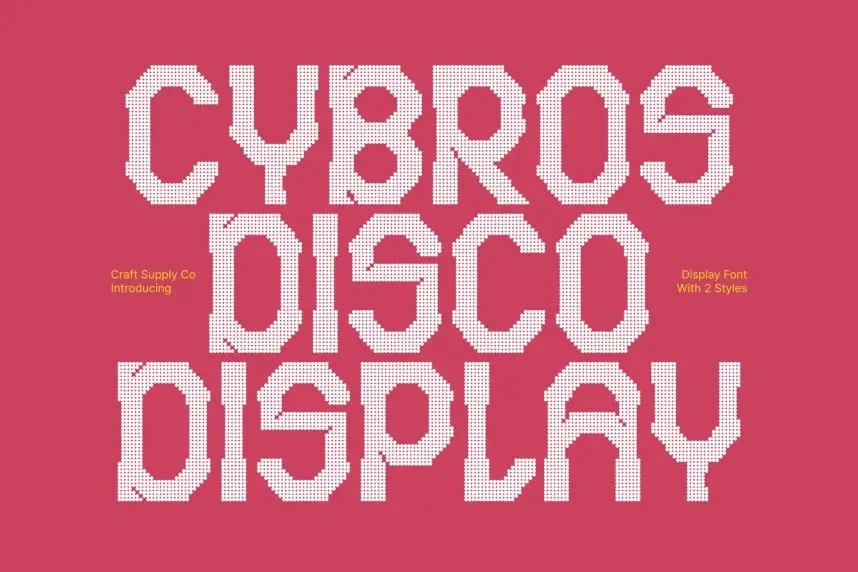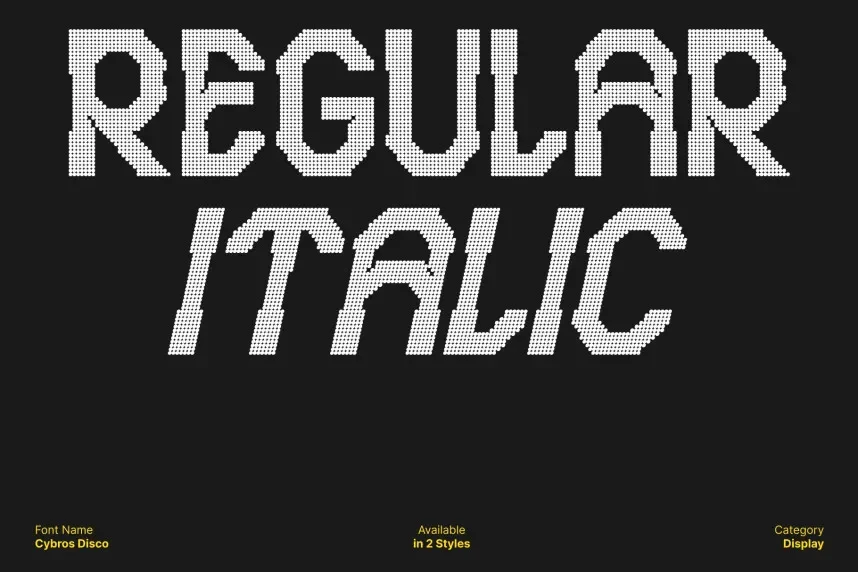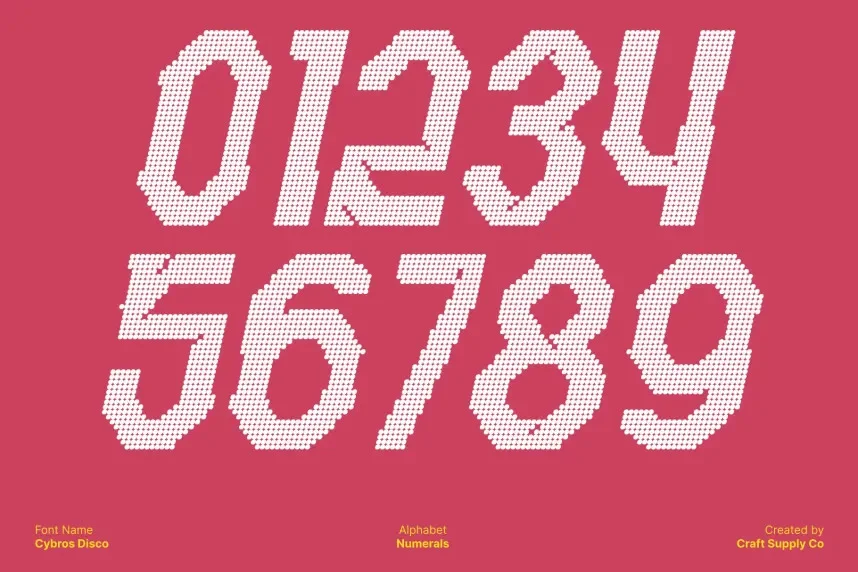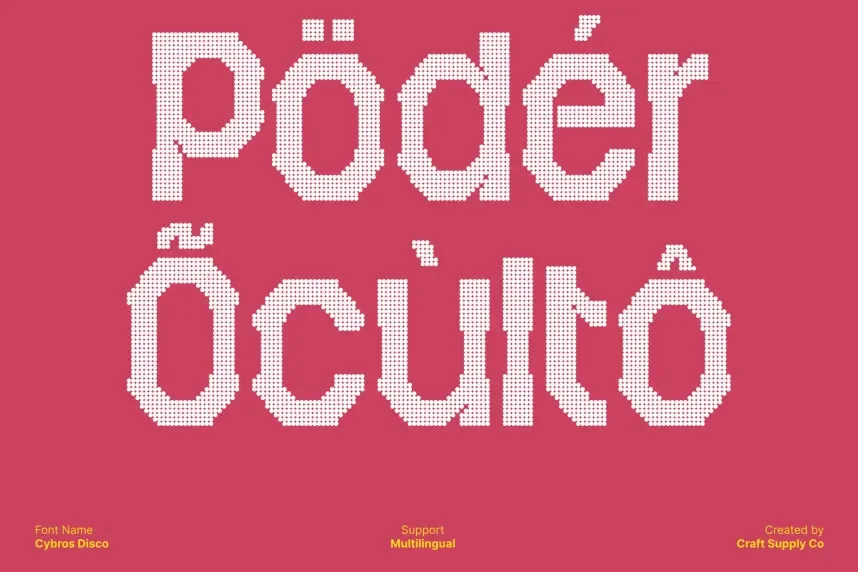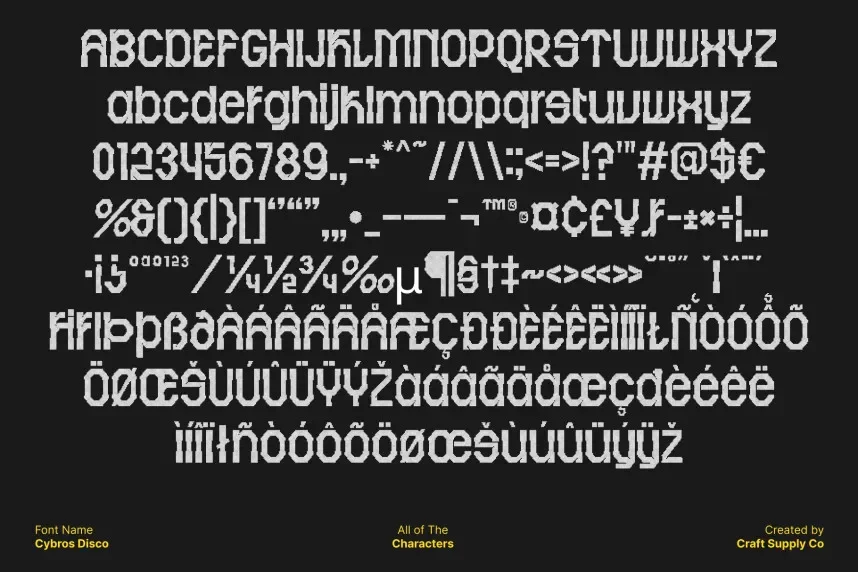
Cybros Disco Font is a modern display typeface with a unique, futuristic twist on the retro disco style. The bold, geometric letterforms are perfect for creating a dynamic presence in headlines, branding, and promotional material. Its sharp lines and rounded edges give it a clean, yet playful look.
Best used for music-related branding, event posters, and social media content, Cybros Disco Font pairs well with simple sans-serif fonts for body text. Available in TTF and OTF formats, it includes a commercial-use license. Always check the license before using it commercially.